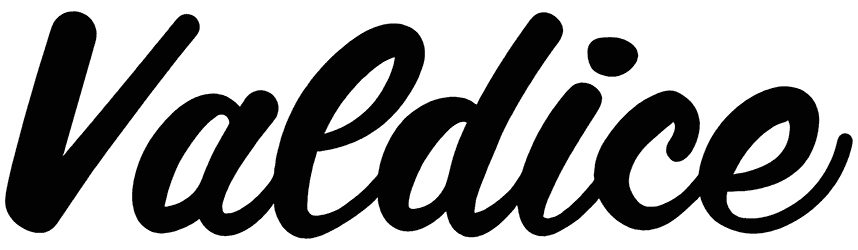
Valdice Font
It will be a great idea to use a casual and cool handwritten font like this item for your modern design that wants to communicate a message memorably. Valdice font has a realistic visual that will work well for many topi…
It will be a great idea to use a casual and cool handwritten font like this item for your modern design that wants to communicate a message memorably. Valdice font has a realistic visual that will work well for many topics, such as an urban artistic banner. This cursive font has no offer for numbers, but it can still be a part of many projects.